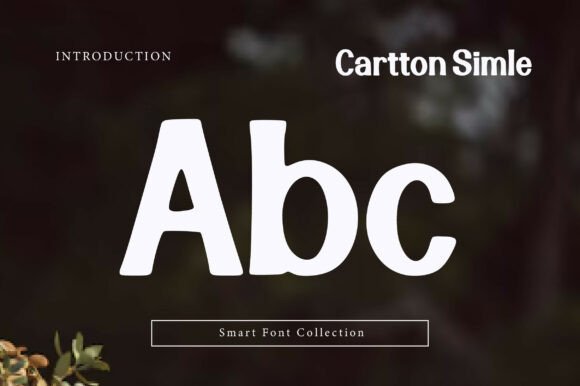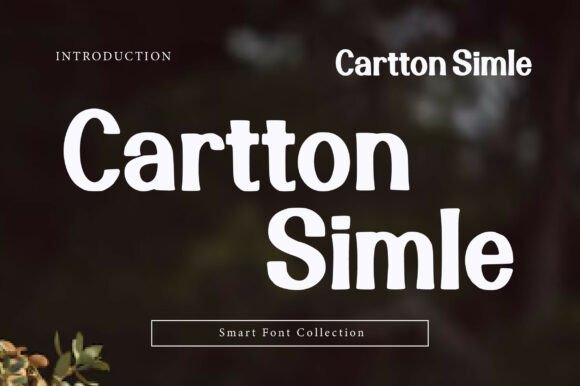
Introduction to Cartton Simle Font
The Cartton Simle font is a unique hybrid of mid-century modern quirk and contemporary bold design.
This Cartton Simle typeface features heavy, blocky letters with unexpected curves and โ€œbitesโ€ taken out of the counters, giving it a rhythmic, almost musical quality Itโ€™s a font with a great deal of personalityโ€”slightly clumsy in a way that feels intentional and artistic.
Why Choose Cartton Simle Font?